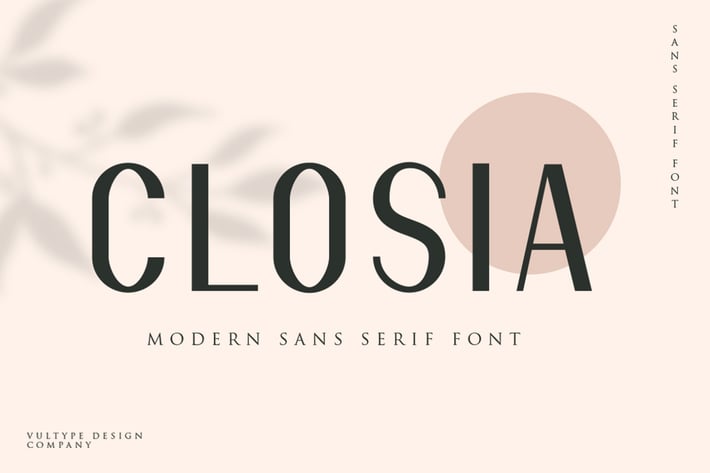
Closia Modern Minimal Font
Closia Sans serif is a clean and minimal sans serif font. Itβs the ideal font for adding romance & charm to your next design projects!
Upper + Lowercase Letters
Numbers + Punctuation
Ligature Feature
OpenType features
* Multilingual support